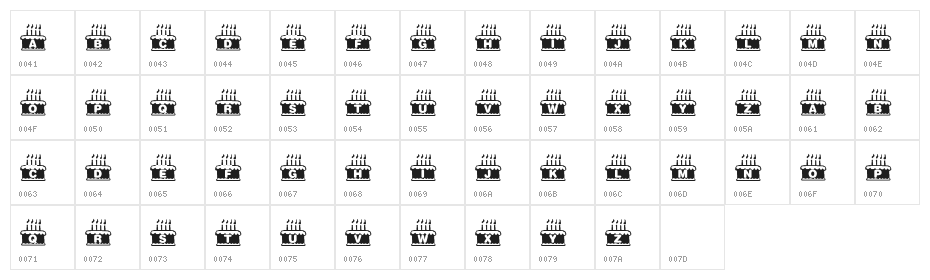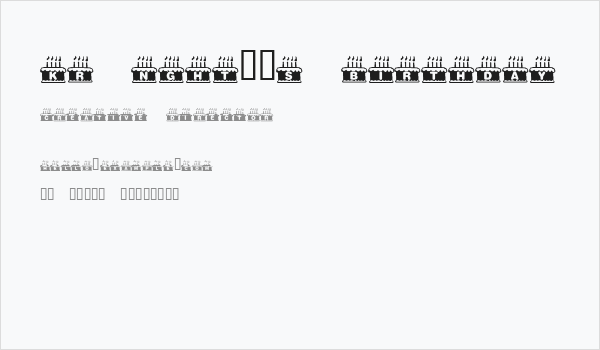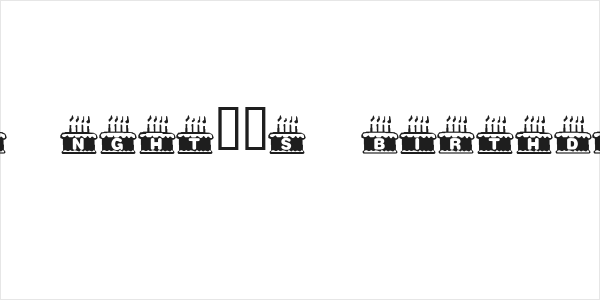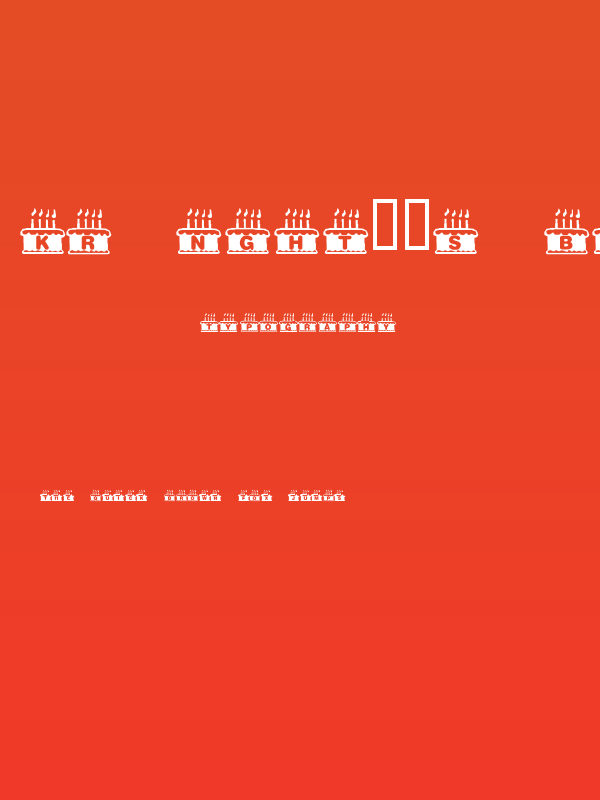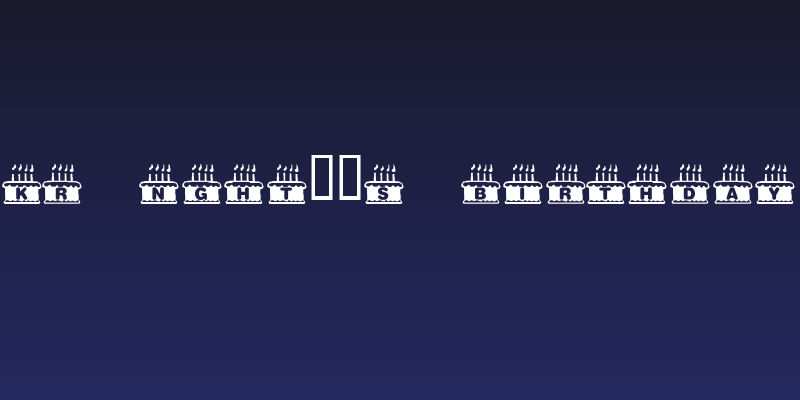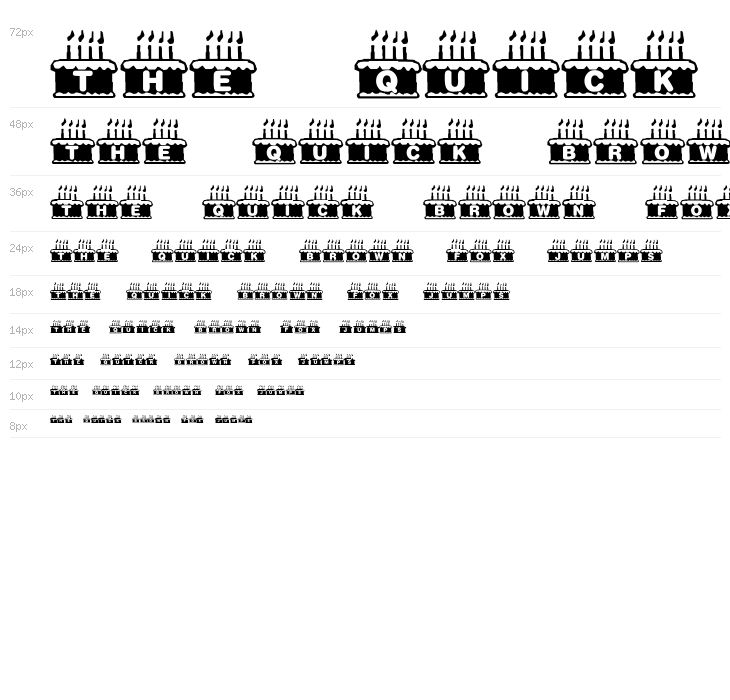
KR Nght's Birthday Font
KR Nght's Birthday Description
This playful and decorative font features uppercase letters designed as birthday cakes, complete with candles on top. Each character is encased in a cake shape, making it highly thematic and suitable for celebratory contexts. The font does not include lowercase letters or numerals, focusing instead on a unique and festive presentation. The bold and whimsical design captures the essence of a birthday celebration, making it ideal for party invitations, greeting cards, or any project that aims to convey joy and festivity.
| Proposed Projects | Ideal for birthday invitations, party decorations, greeting cards, and festive banners. |